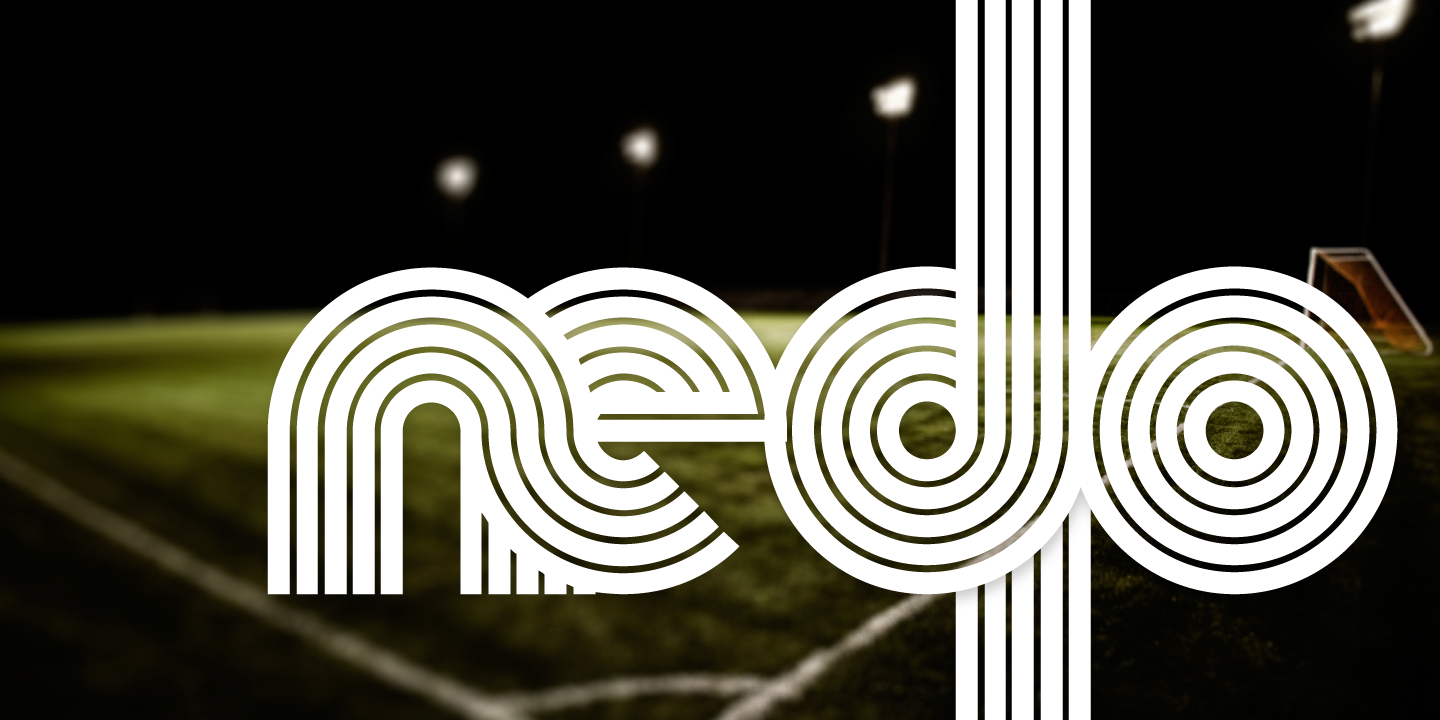
The Nedo Font Free Download is ideal for posters, logos, branding, and editorial designs, offering a bold, geometric aesthetic for striking visuals.
This font is exciting because its retro-inspired, multiline geometric design, with ligatures and alternate characters, creates dynamic, eye-catching layouts.
The Nedo family includes a single Regular style with extensive ligatures and alternates, ensuring creative flexibility.
Elevate your designs with the Nedo Font Free Download, a single-weight display typeface designed by Michael Parson and published by Typogama. Inspired by the geometric work of Venezuelan designer Nedo Mion Ferrario, Nedo features a bold, multiline structure with a retro-modern vibe, perfect for creating impactful headlines or distinctive logos. Its large set of ligatures and alternate characters allows for versatile text layouts, ideal for posters, branding, or digital graphics. The font supports multiple formats (OTF, TTF, WOFF) for seamless integration across Adobe Creative Suite, web platforms, and more. As 2025 design trends favor bold, decorative typography, downloading Nedo Font Free Download keeps your projects visually striking. Test it today to explore its dynamic potential, and consider purchasing for commercial use to fully leverage its unique style.